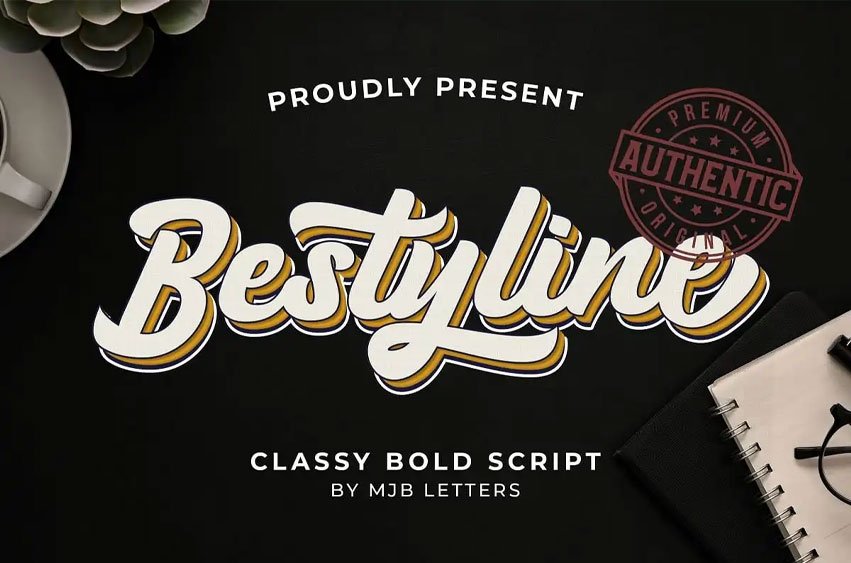
Bestyline Font is a captivating Bold Script Font that seamlessly blends bold lettering with the artistic elements of calligraphy. Its unique design exudes confidence and energy, creating a striking visual impact. The font features thick, well-defined characters with artistic contours, adding a touch of elegance to each letter. The strong and impressive script style makes ‘Bestyline’ an ideal choice for projects that require a bold and classy appearance, such as headlines, logos, posters, and other designs.
The standout features of Bestyline include the clarity of each letter, ensuring that text using this font effortlessly captures attention. Its boldness and distinctiveness make it well-suited for both print and digital designs. Whether used in headlines or logos, ‘Bestyline’ brings a modern and sophisticated flair to any project, making it the perfect choice for those seeking a seamless combination of boldness and beauty in their typography.